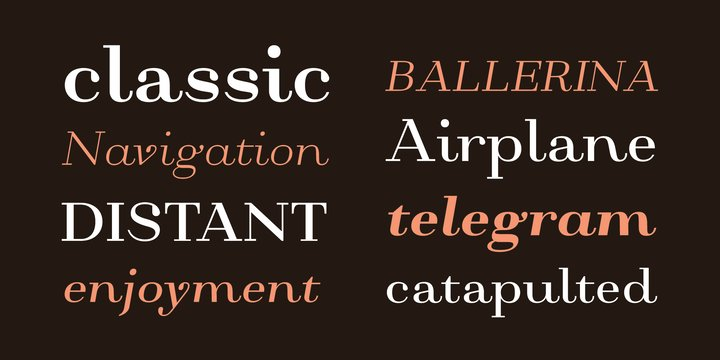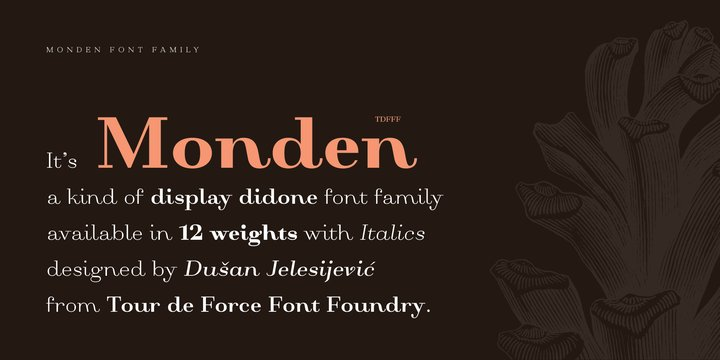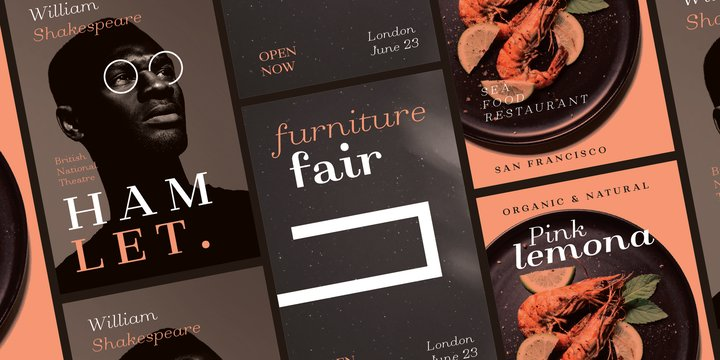
Monden Font
Monden FontIf you’d like to scream, but you have no self esteem,
or you’d love to start a fight, but you’re scared of the night,
I made this font for you all, whether you’re short or tall.
Monden is wide, gentle and fun, but it wasn’t born under the Sun,
it was my intention to make it unique, I surely hope I didn’t make some freak,
it looks a bit classical, in moments maybe here and there radical,
but it surely is really graphical with a dose of something magical.
Want a logo, poster or any other design, but you’d rather cry and then run,
even this description sounds lousy, at least it isn’t so drowsy,
so meet Monden family from our hood and keep your spirit in good mood,
and do the things on any way you think they should.